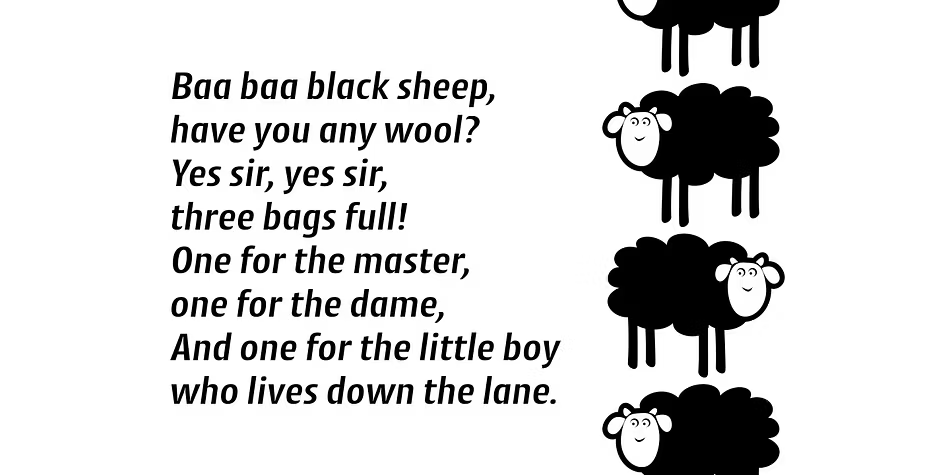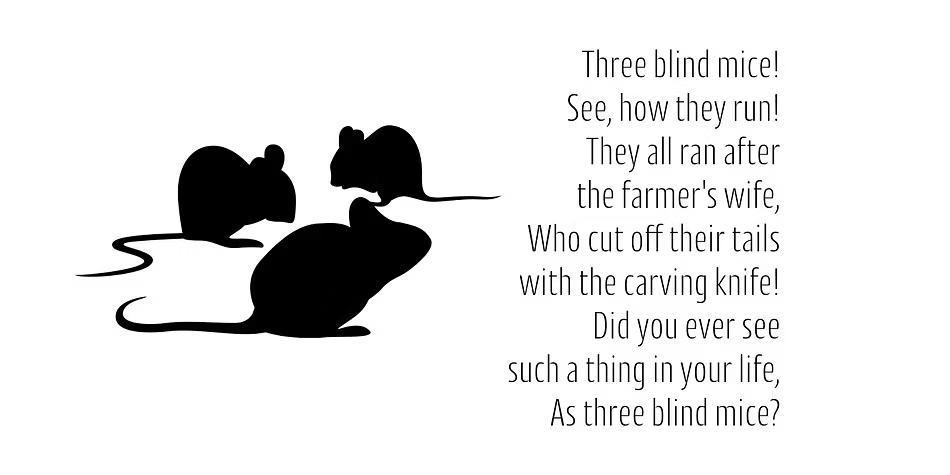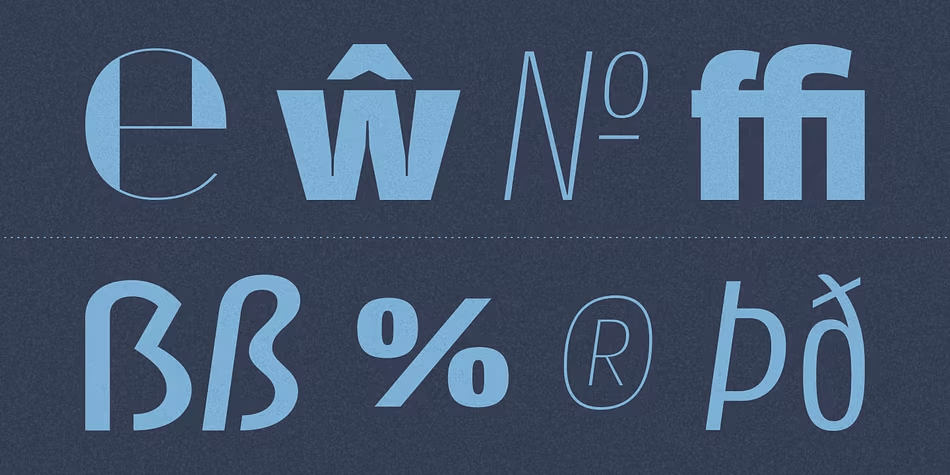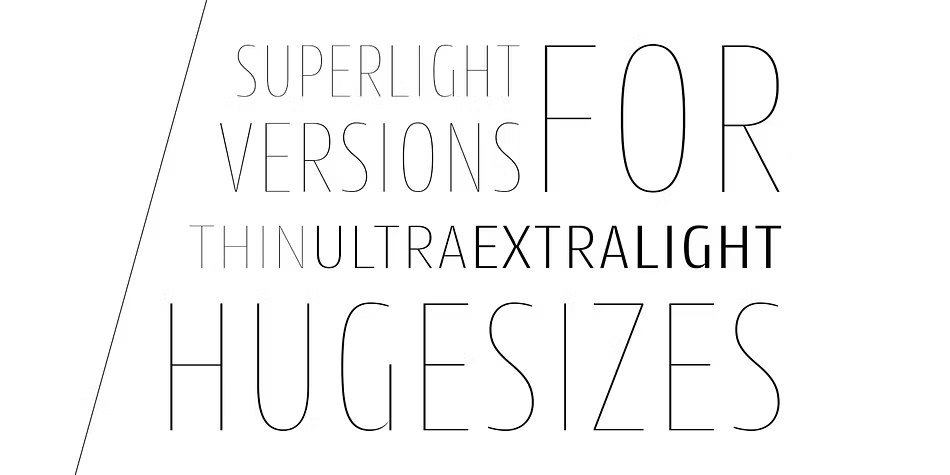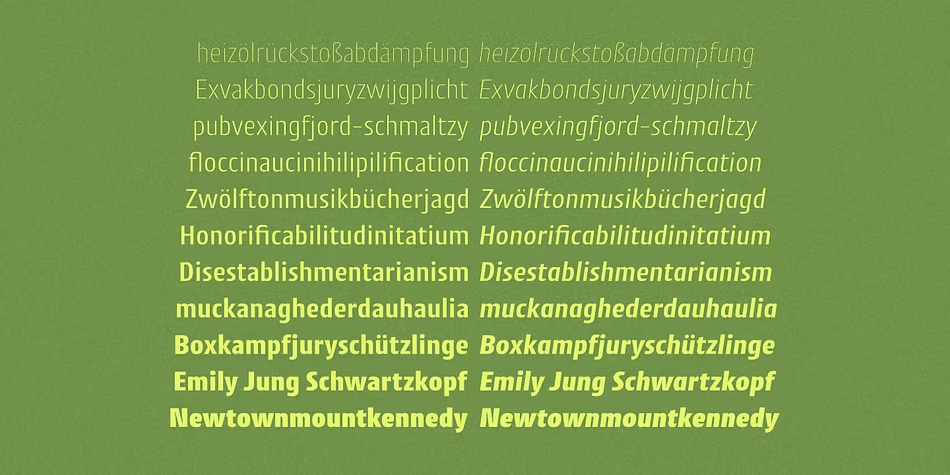
About Cantiga
"Cantiga" is a monophonic song or melody, sometimes repetitive, often with unpretentious themes. In the same simplicity, this font family combines robustness with some very fine details, with 44 versions for various purposes. Choose thinner…